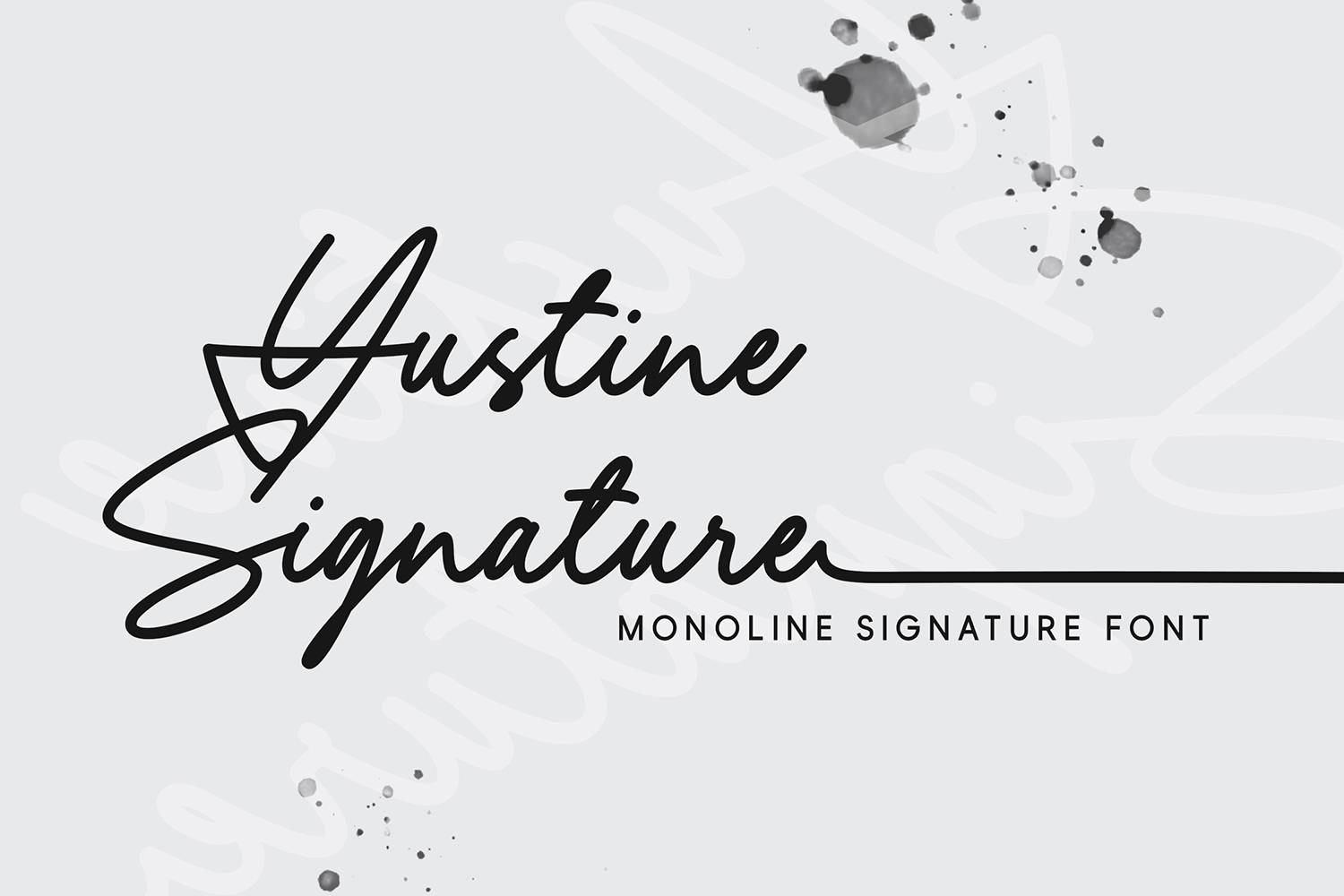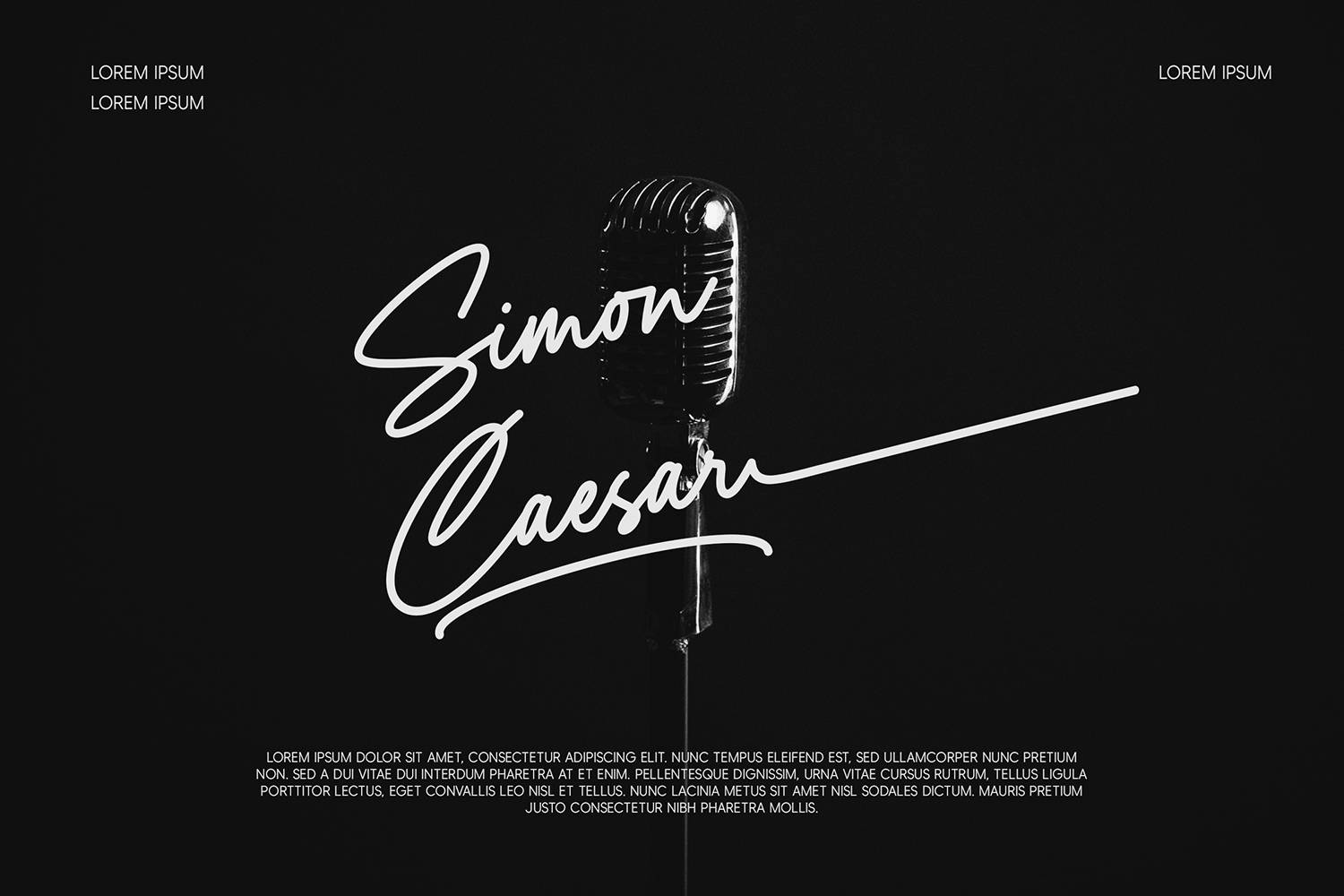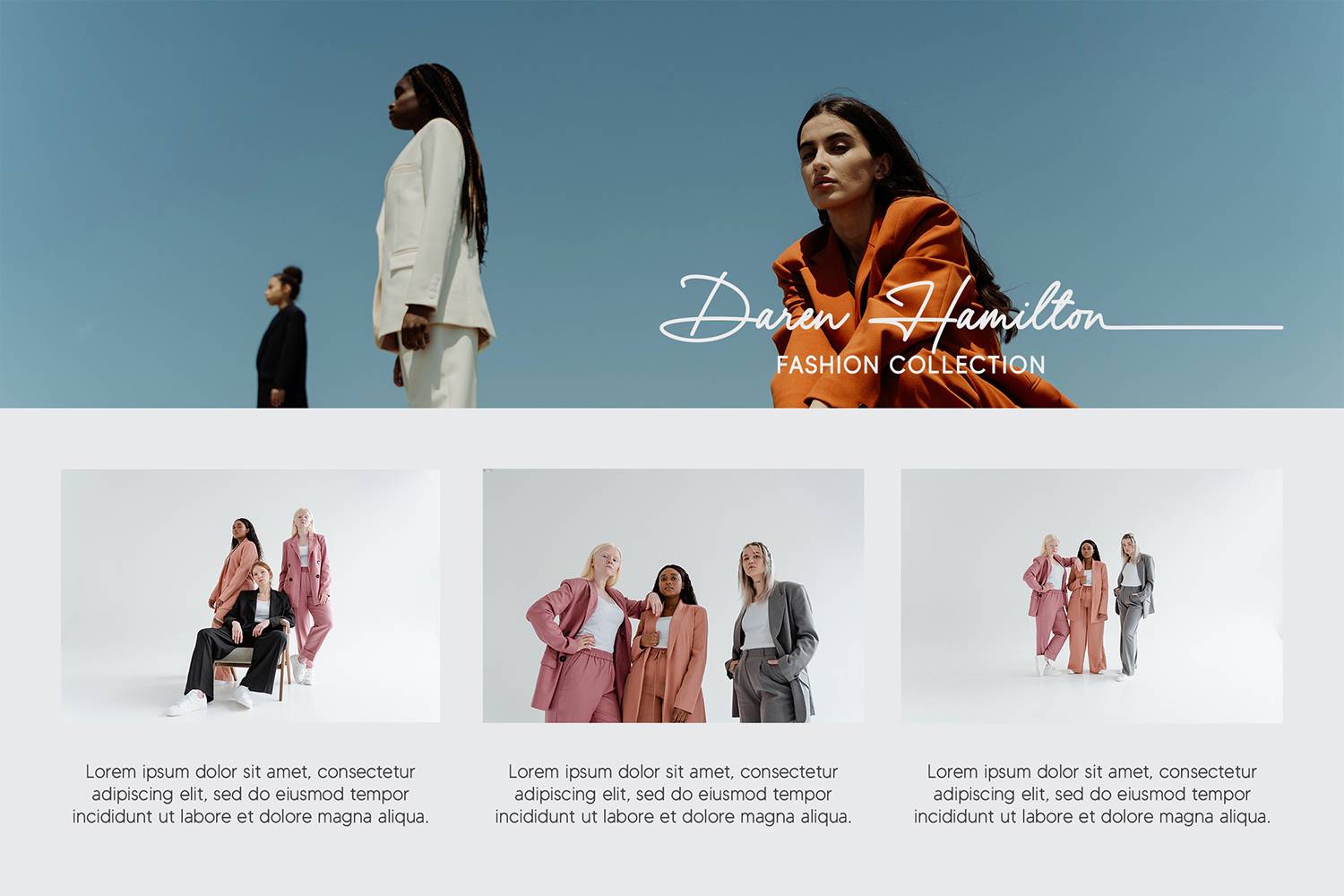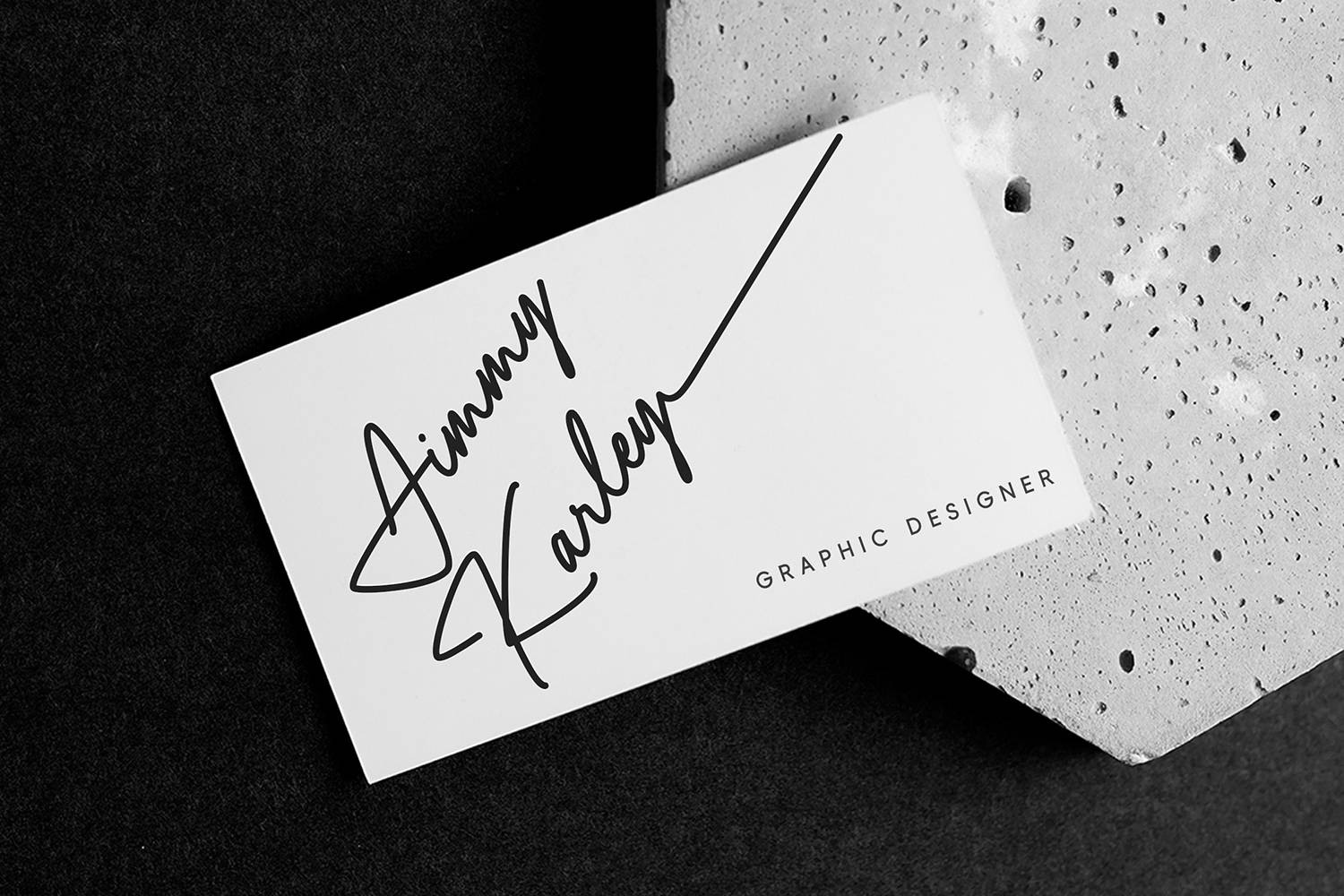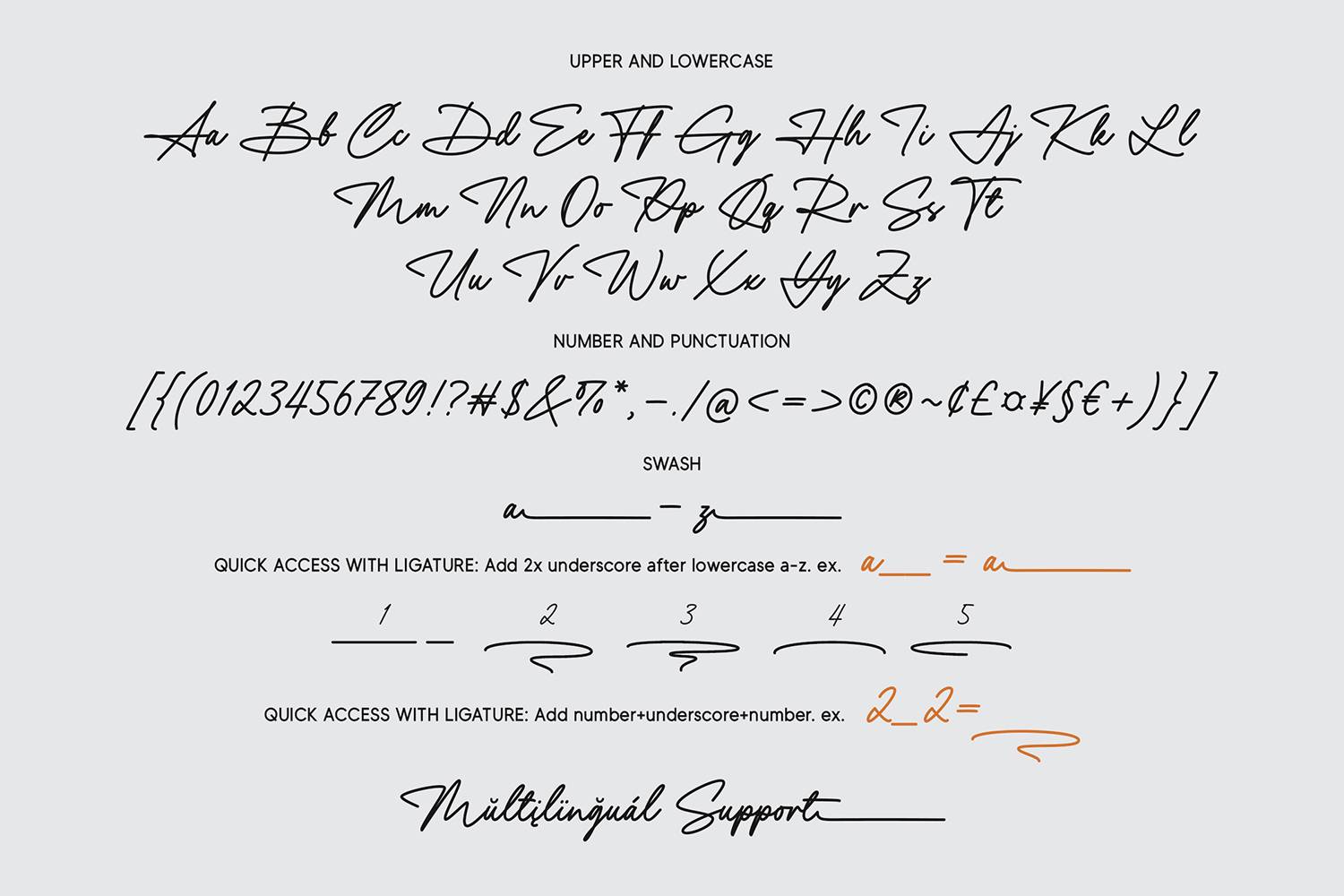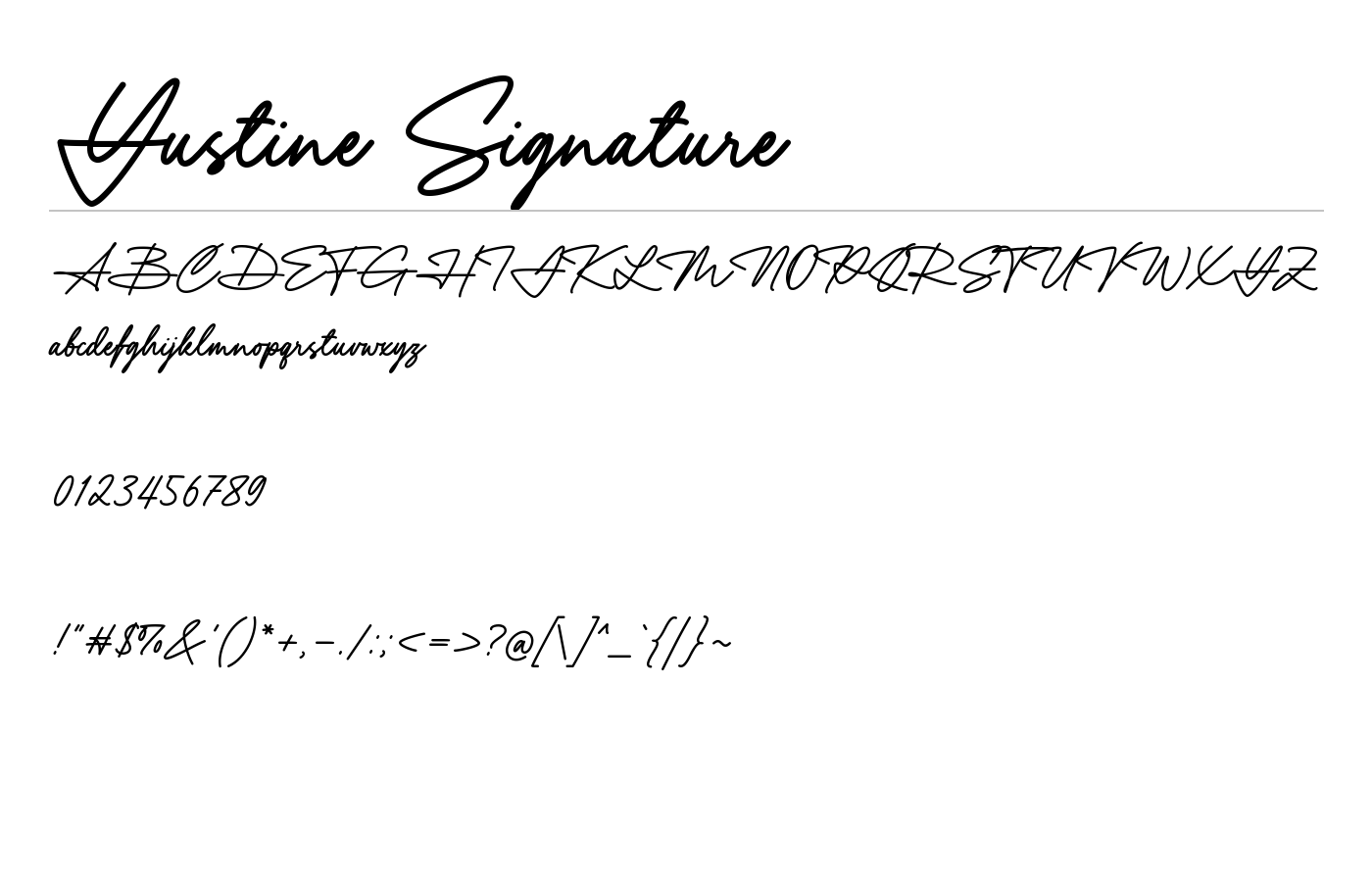
Yustine Signature is a graceful script font that mimics natural handwriting with smooth, flowing strokes and elegant, slender letterforms. Its light weight and slightly condensed style give it a refined, personal touch, making it ideal for branding, invitations, and stylish headlines where a sophisticated yet approachable feel is desired. This font works beautifully in projects wanting to convey creativity, elegance, and a modern handwritten charm.
Yustine Signature Font
About Yustine Signature Font
| Font family | Yustine Signature Font |
| Release date | 2022-10-03 |
| Designer | Dwi Ahidian |